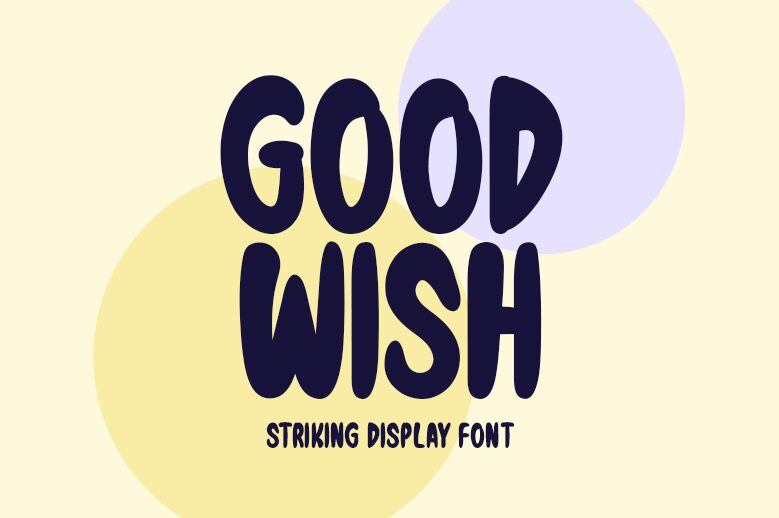
Good Wish is a striking display font that exudes a playful, cartoon-inspired charm. Crafted by designer Md Shohail Bhuian, this bold and condensed typeface immediately grabs attention with its dynamic, expressive letterforms. The font's chunky, almost hand-drawn appearance lends it a whimsical, lighthearted quality, making it an ideal choice for a range of creative projects.
From eye-catching headlines and titles to engaging social media graphics, Good Wish's distinctive style can elevate a design with its unique personality. The font's condensed width also allows for efficient space utilization, making it a practical option for limited-space applications. Whether used for branding, packaging, or digital interfaces, Good Wish's bold, cartoon-like aesthetic is sure to capture the imagination and bring a touch of playfulness to any design.